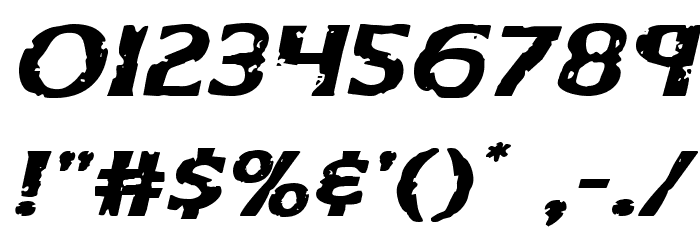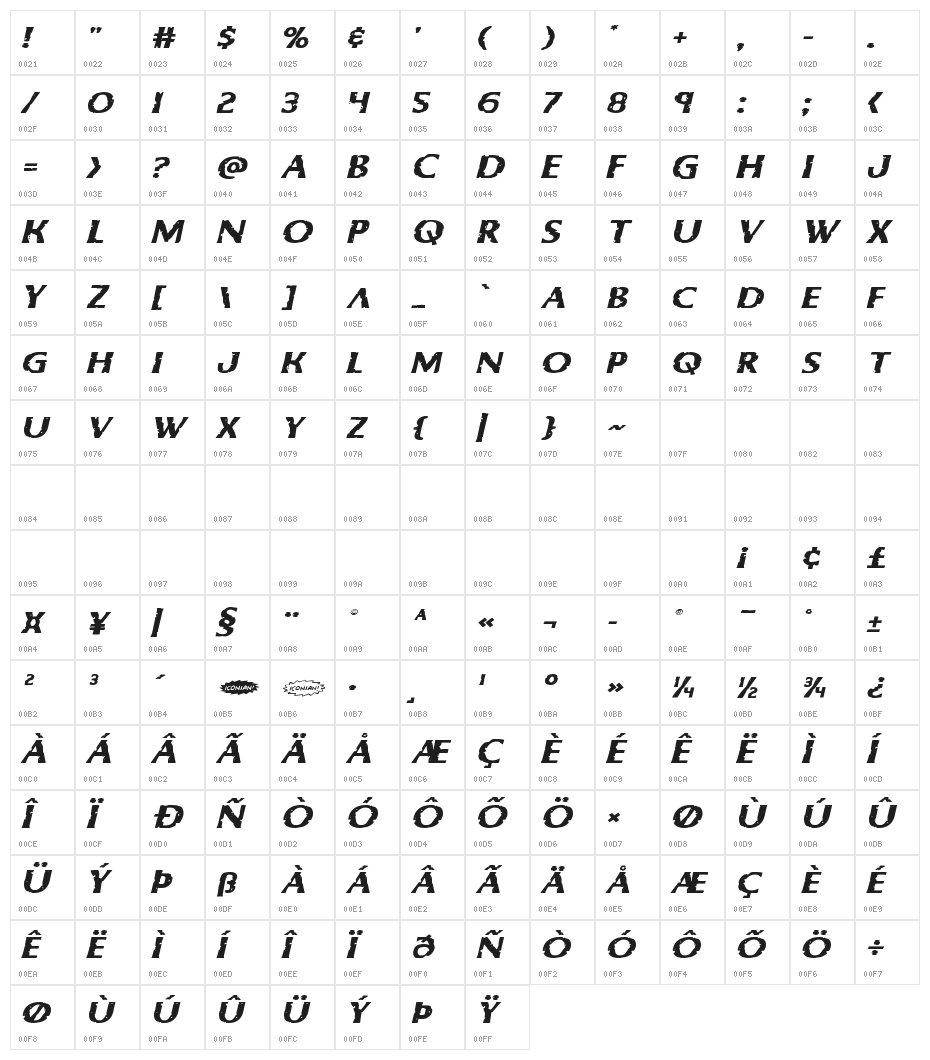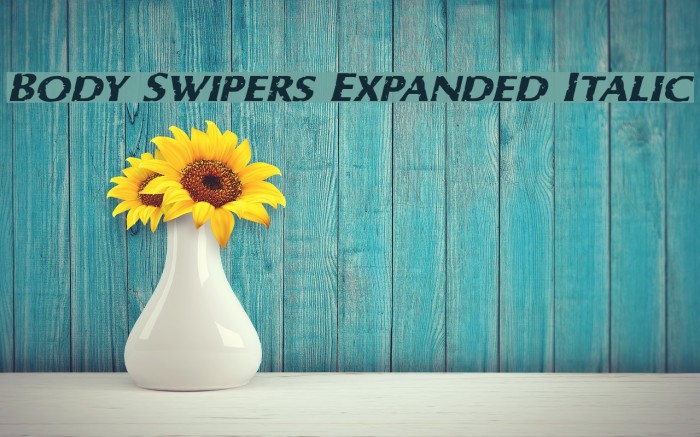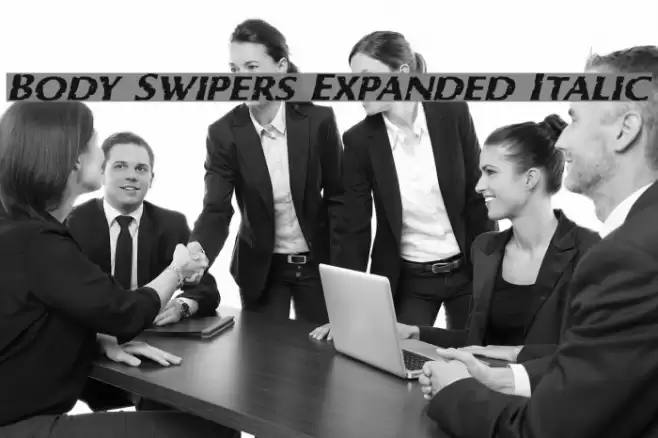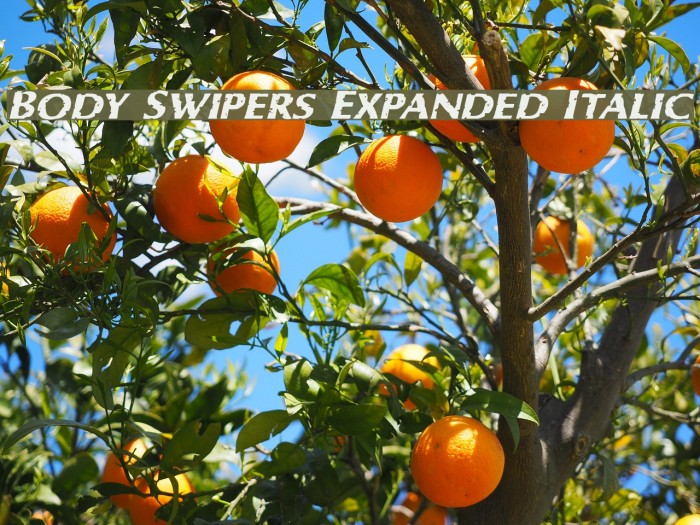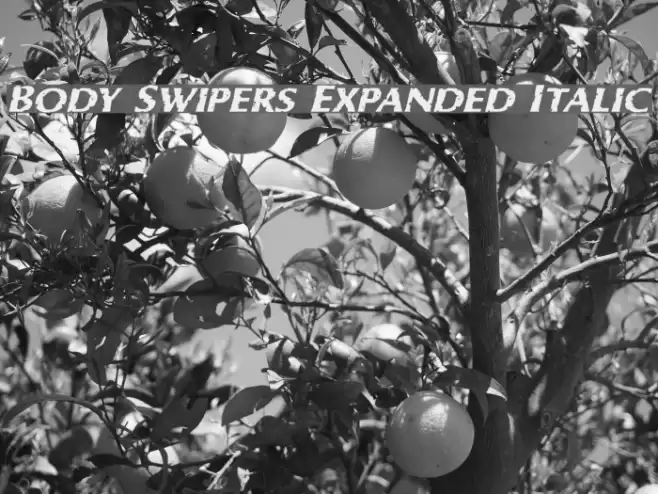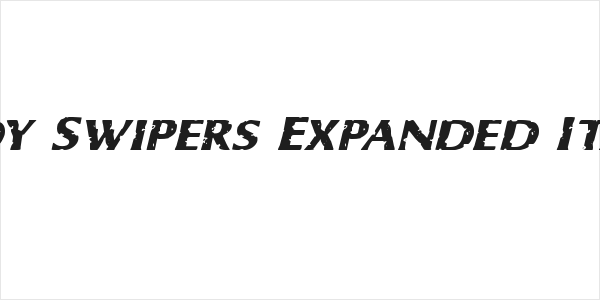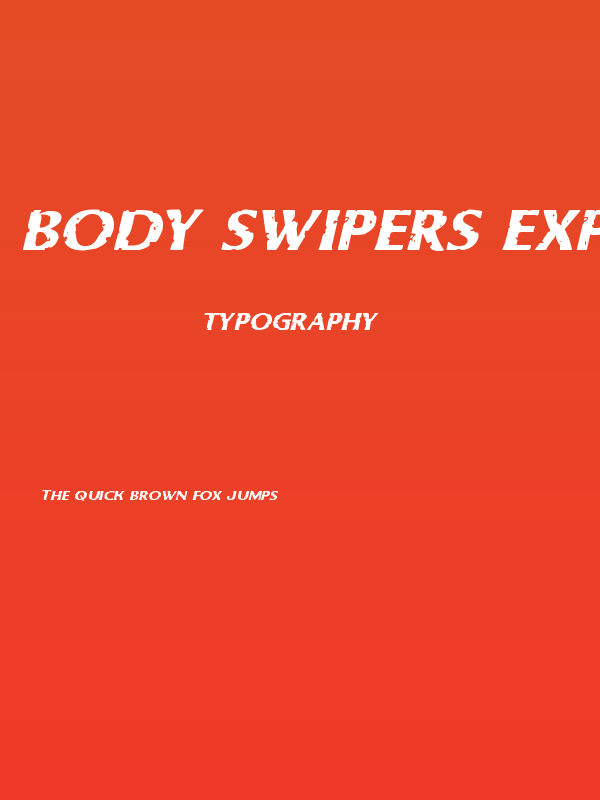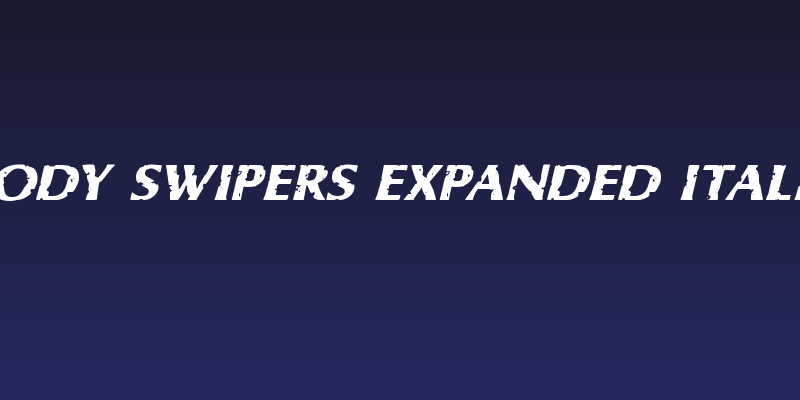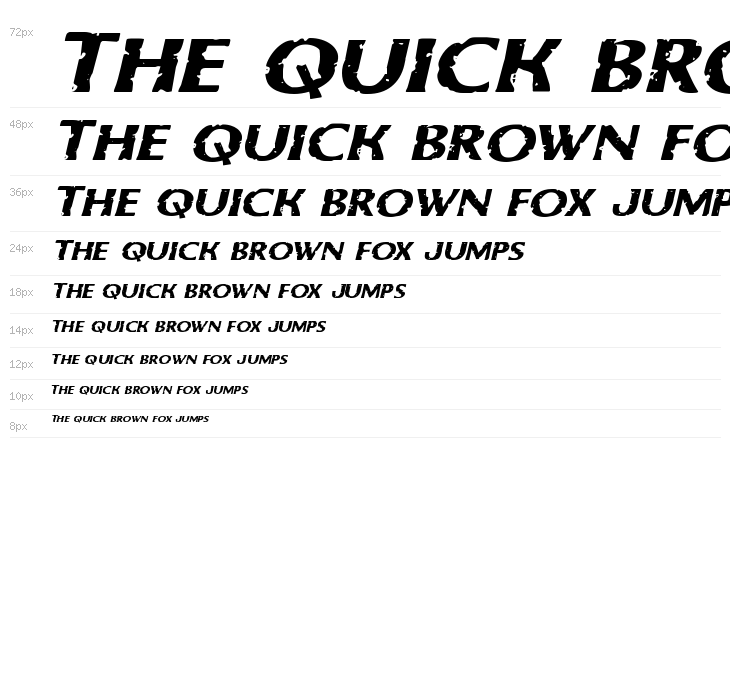
Body Swipers Expanded Italic Font
Body Swipers Expanded Italic Description
This font features a bold and dynamic style with a distressed, grunge-like texture that gives it a rugged and edgy appearance. The characters are italicized, adding a sense of motion and urgency. The expanded width of the letters provides a strong visual impact, making it suitable for attention-grabbing designs. The uppercase and lowercase letters maintain a consistent style, with numbers and special characters following the same aesthetic. The font's unique texture and slanted orientation make it ideal for projects that require a bold statement or a modern, urban feel.
| Overall Style | Modern, Urban, Edgy |
| Proposed Projects | Ideal for posters, album covers, urban-themed designs, and branding that requires a bold statement. |